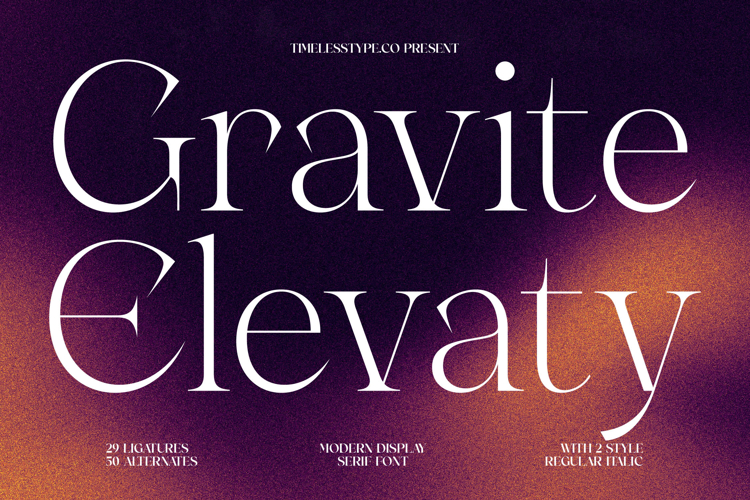
Gravite Elevaty - Modern Display Serif Font
Unleash unparalleled elegance in your designs with Font Gravite Elevaty - Modern Display Serif Font Serif Display. This exquisite typeface masterfully blends classic serif grace with a decidedly modern aesthetic, featuring striking high-contrast strokes that command attention. Its refined letterforms and delicate serifs exude sophistication, making it an instant choice for projects demanding a touch of luxury and distinction.
Discover a world of creative possibilities with the inherent versatility of Font Gravite Elevaty - Modern Display Serif Font Serif Display. Equipped with an impressive suite of 29 ligatures and 50 alternates, designers can craft truly unique and expressive typographic compositions. With its extensive multilingual support, Font Gravite Elevaty - Modern Display Serif Font Serif Display adapts seamlessly across global markets, making it incredibly versatile for international projects.
Perfectly suited for elevating premium visual communications, Font Gravite Elevaty - Modern Display Serif Font Serif Display is an indispensable asset. It is ideal for luxury branding, exclusive packaging design, high-fashion editorial layouts, elegant invitations, and impactful website headers. This font effortlessly conveys a sense of exclusivity, authority, and high quality, establishing an unforgettable brand presence.
Invest in a typeface that transcends fleeting trends and delivers timeless appeal. Font Gravite Elevaty - Modern Display Serif Font Serif Display isn't just a font; it's a statement, designed to impart a sense of grandeur and professional polish to any creative endeavor. Elevate your visual identity and captivate your audience with this truly remarkable and sophisticated display serif.